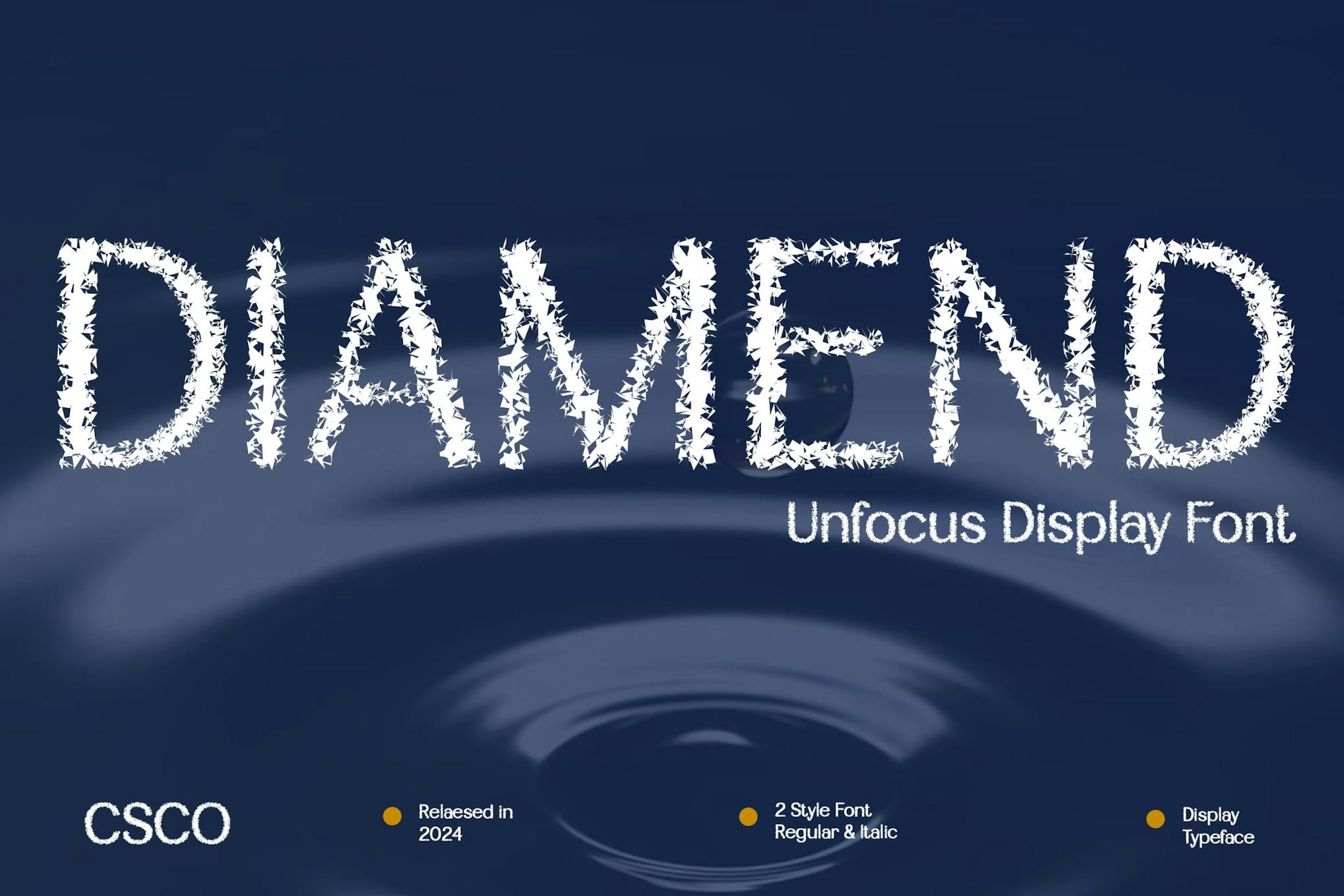
Diamend Unfocus Font
Diamend Unfocus Font sparkles across luxury jewelry branding, precious gemstone exhibitions, diamond cutting workshop materials, high-end engagement ring campaigns, exclusive jewelry auction catalogs, prestige watchmaker identities, crystalline beauty product packaging, diamond mining heritage museums, luxury crystal collections, precious metals trading communications, elite gemology certifications, and brilliant lifestyle marketing where diamond brilliance and atmospheric unfocus create dazzling luxury experiences.
This brilliant typeface generates excitement through its perfect embodiment of diamond clarity and precious gemstone luminescence that creates typography radiating the eternal brilliance and multifaceted beauty of the world's most precious stones. Diamend Unfocus Font captures the essence of diamond perfection with its crystalline-soft letterforms that suggest light refracting through perfectly cut facets and the ethereal sparkle that emerges when precious stones catch ambient illumination. The font's luxurious design approach incorporates elements that evoke geological formation processes, master craftsmanship precision, and the timeless allure that makes diamonds symbols of eternal commitment and ultimate luxury. Its distinctive character reflects the rarity, perfection, and enduring value that define authentic precious stone artistry and luxury jewelry craftsmanship.
The Diamend Unfocus Font family encompasses multiple crystalline variations including Regular, Light, Medium, Bold, and Brilliant versions, each maintaining the font's characteristic diamond radiance while offering different levels of precious luxury impact. The collection features diamond-inspired blur effects, faceted light treatments, and crystalline textures that enhance its luxury aesthetic. Additional elements include gemstone ornaments, diamond cut symbols, precious metal decorative borders, and brilliant flourishes that reinforce the font's connection to fine jewelry artistry and precious stone expertise.
Luxury jewelry brands and prestigious gemstone institutions consistently select Diamend Unfocus Font Free Download for projects requiring typography that communicates diamond excellence and precious stone authenticity. This remarkable typeface excels in applications where establishing luxury credibility and conveying precious stone expertise are essential for high-end market success. The font's diamond qualities make it particularly effective for fine jewelry houses, gemstone certification organizations, and luxury lifestyle brands targeting discerning clientele who appreciate the rarest treasures and finest craftsmanship.
Whether you're designing luxury jewelry collections, creating precious stone educational materials, developing diamond certification programs, or crafting brilliant luxury communications, Diamend Unfocus Font delivers unmatched precious stone authenticity. Its ability to convey diamond brilliance, precious luxury, and crystalline perfection makes it invaluable for luxury artisans seeking typography that genuinely reflects the eternal beauty and exceptional value of precious gemstones. The font's brilliant presence ensures your designs will communicate the sparkling excellence and precious rarity that define exceptional luxury jewelry communications and diamond craftsmanship experiences.